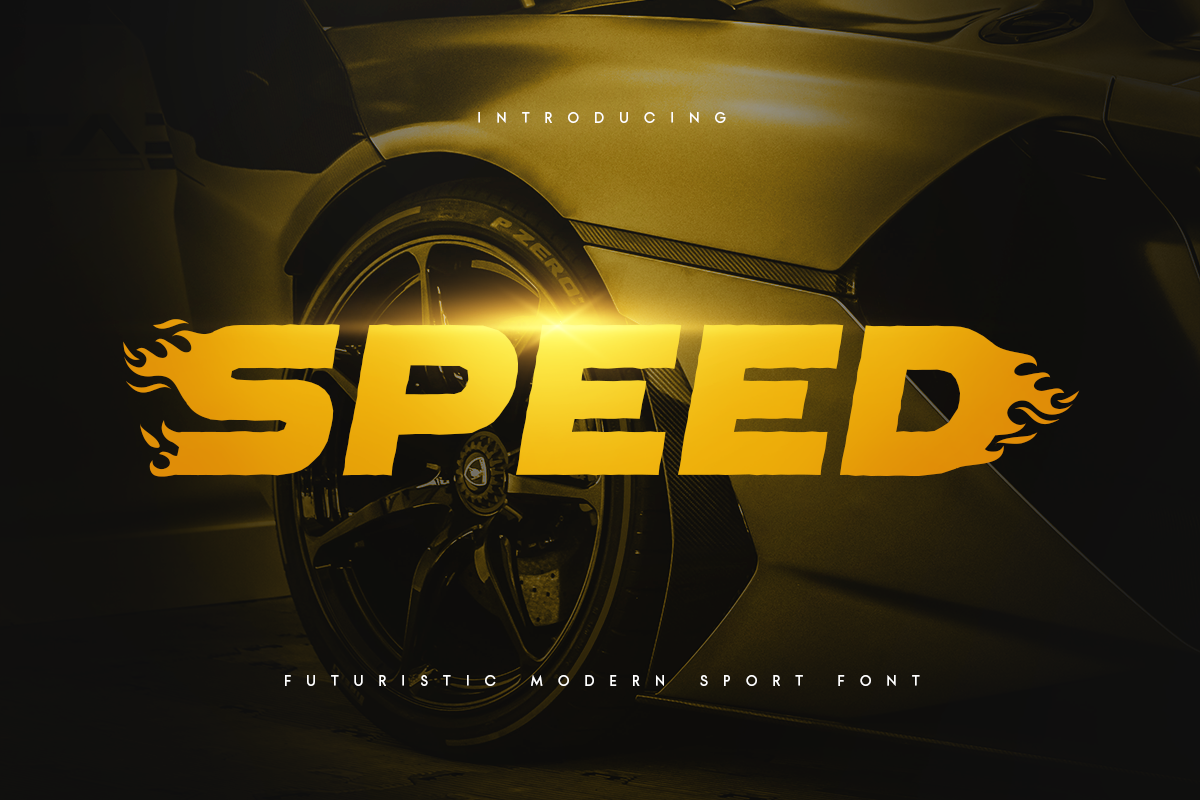
Speed - Futuristic Modern Sport Font
Accelerate your designs with Speed - a bold futuristic font built for high-impact sports and racing projects. This modern sans serif typeface combines racing-inspired aesthetics with unique character variations that create dynamic visual impact in seconds. Perfect for sports events, team branding, jersey designs, and any project demanding bold legibility and athletic energy. Speed excels across multiple applications including sport branding projects, logo design, social media posts, advertisemen...